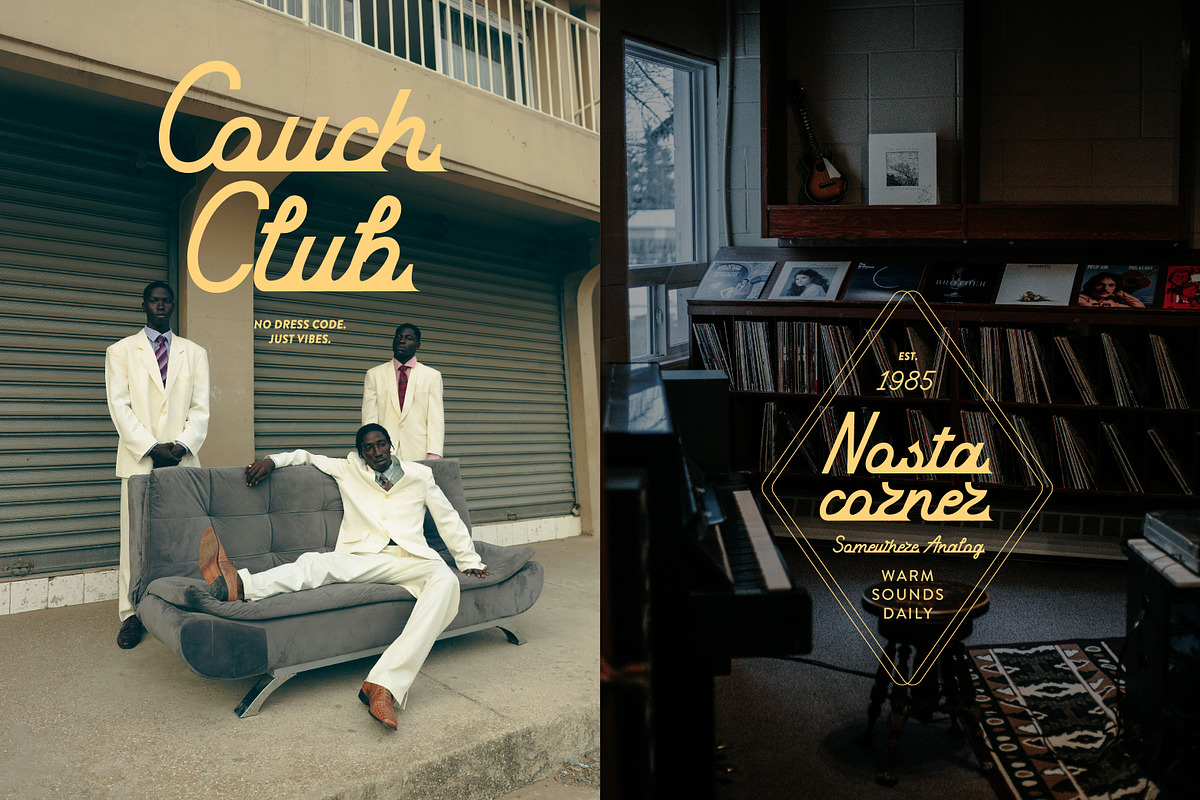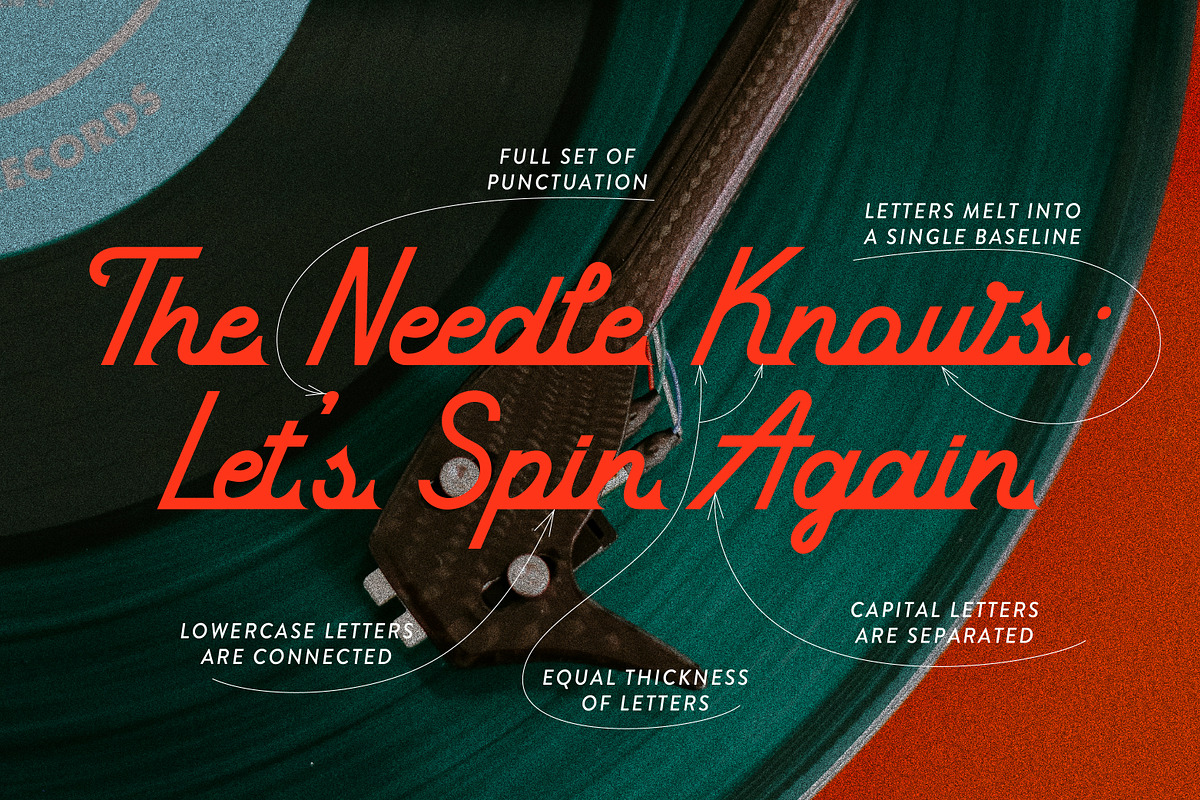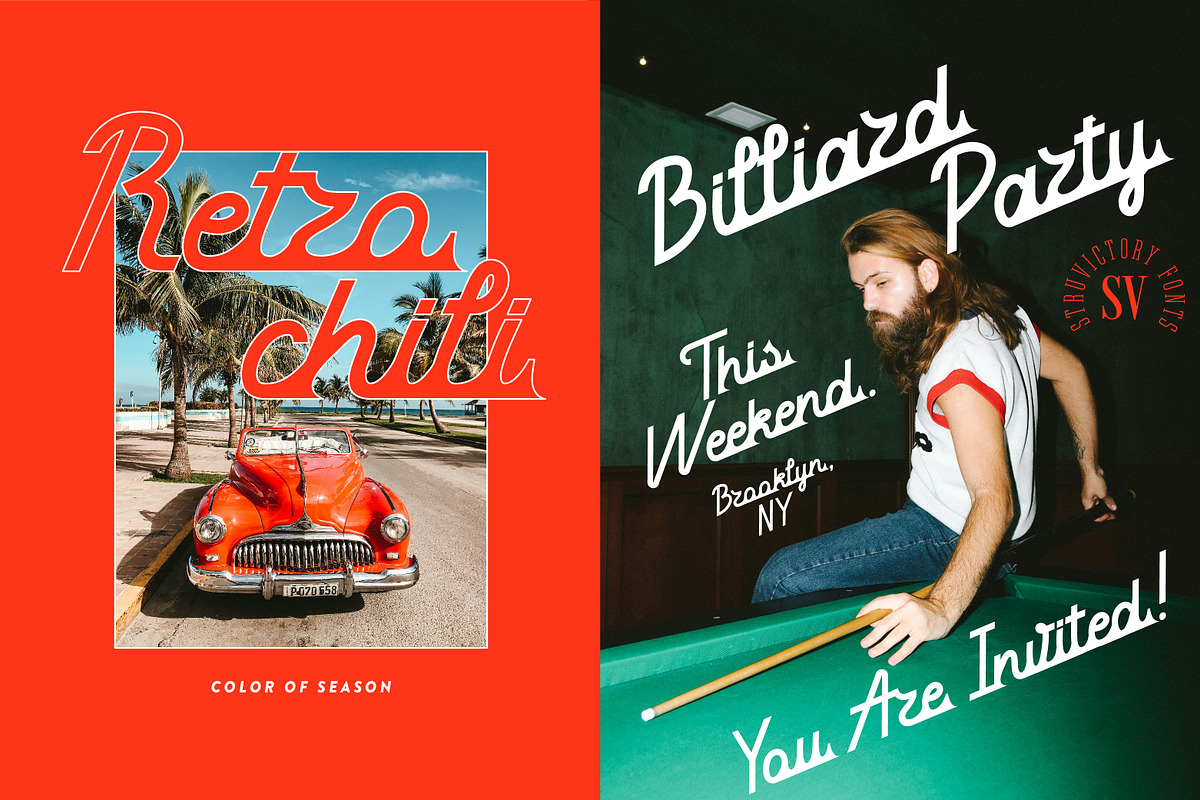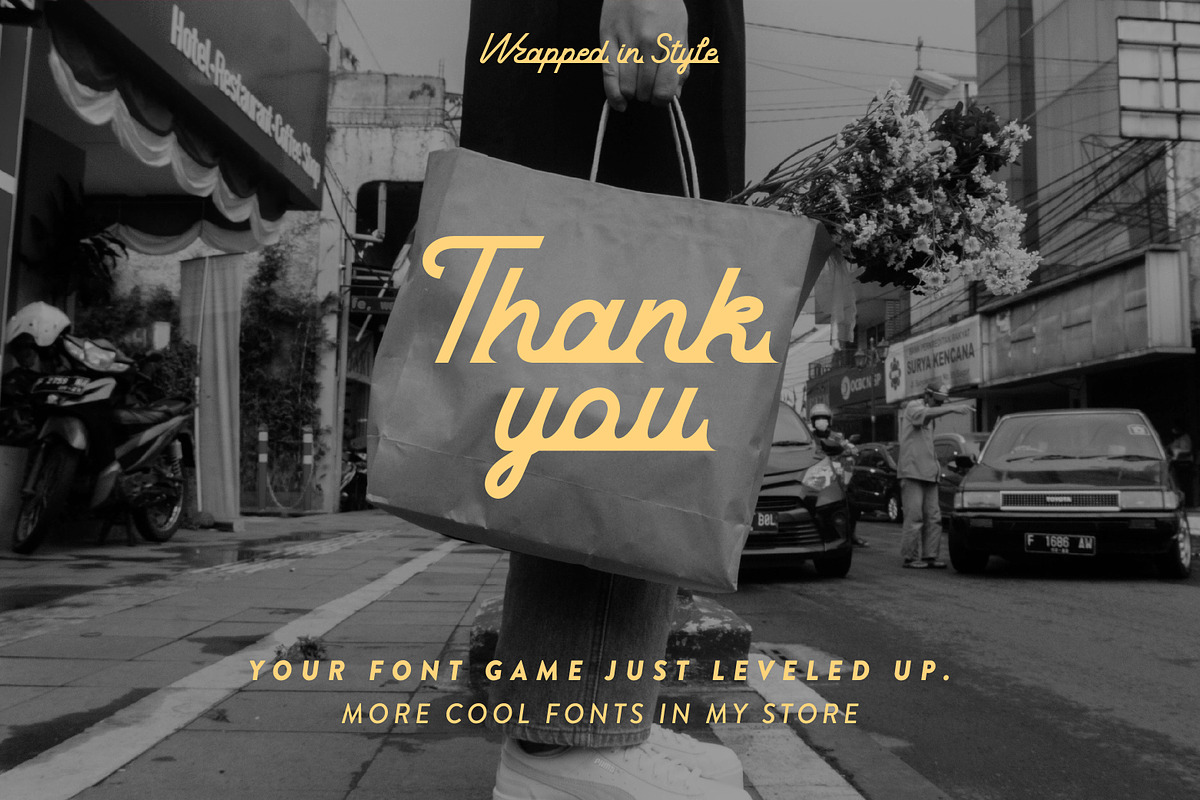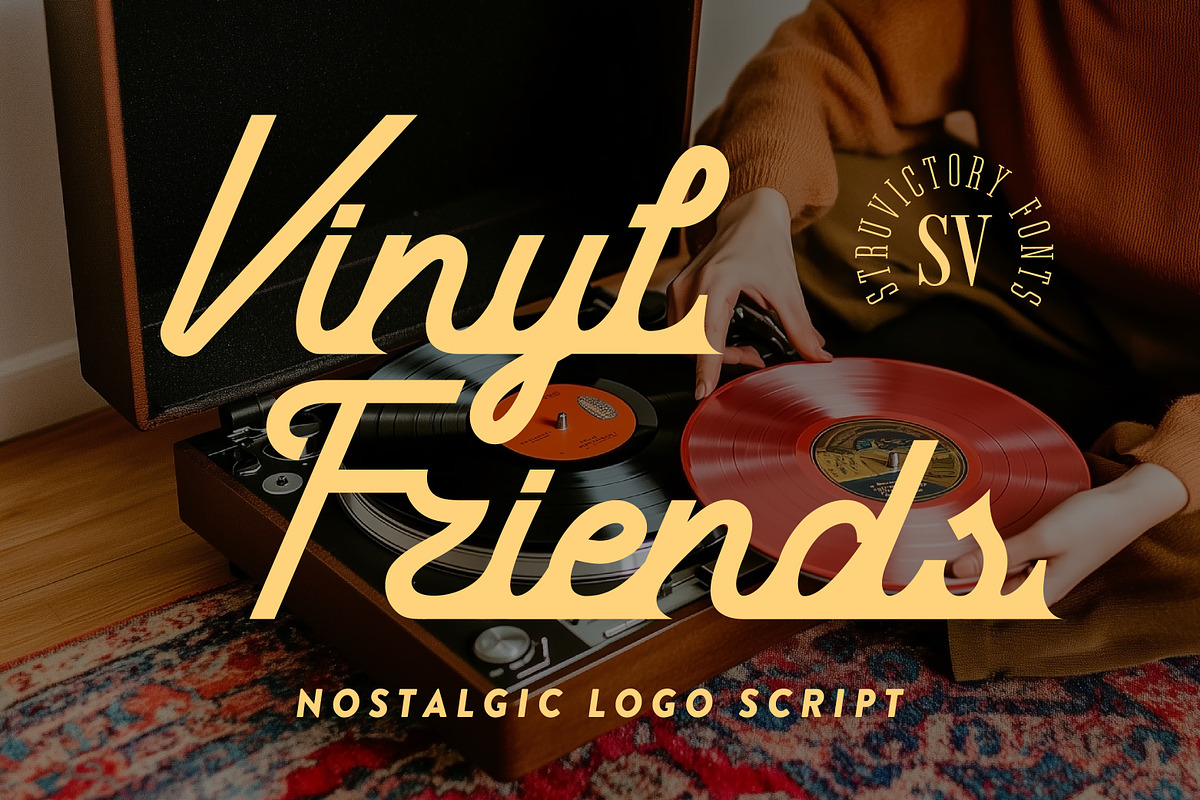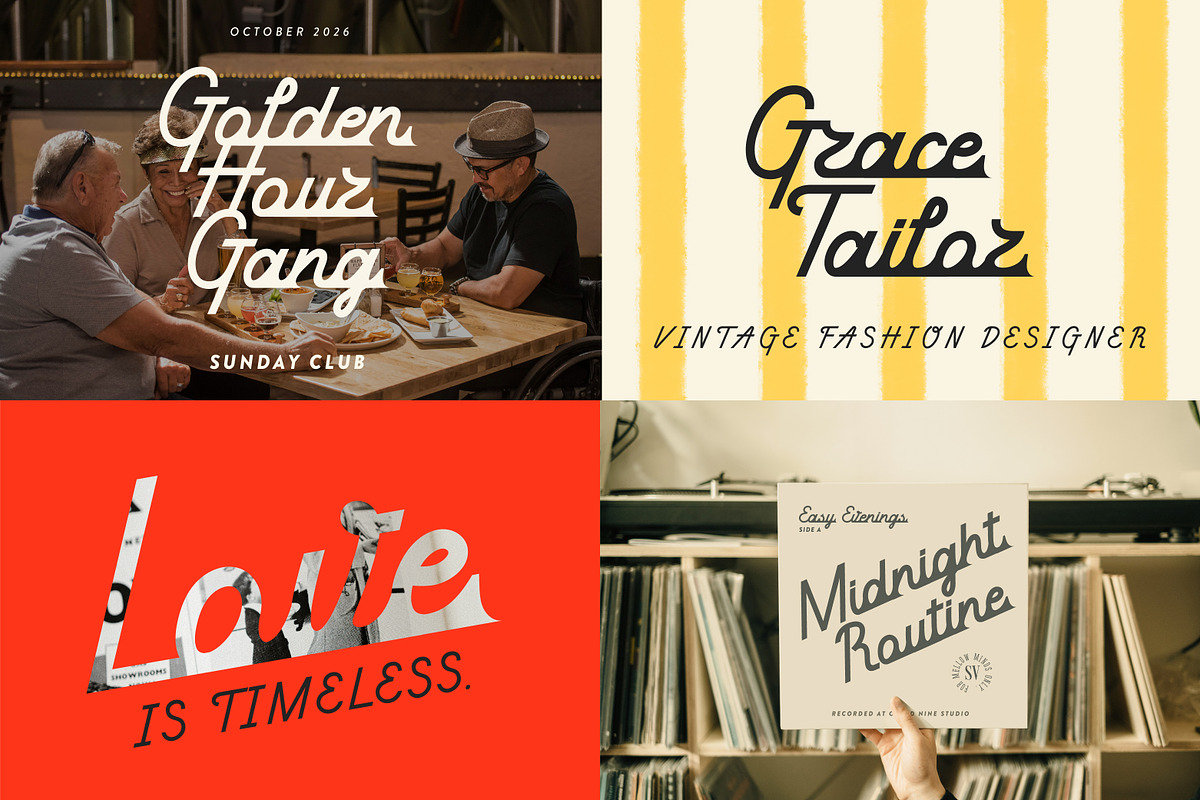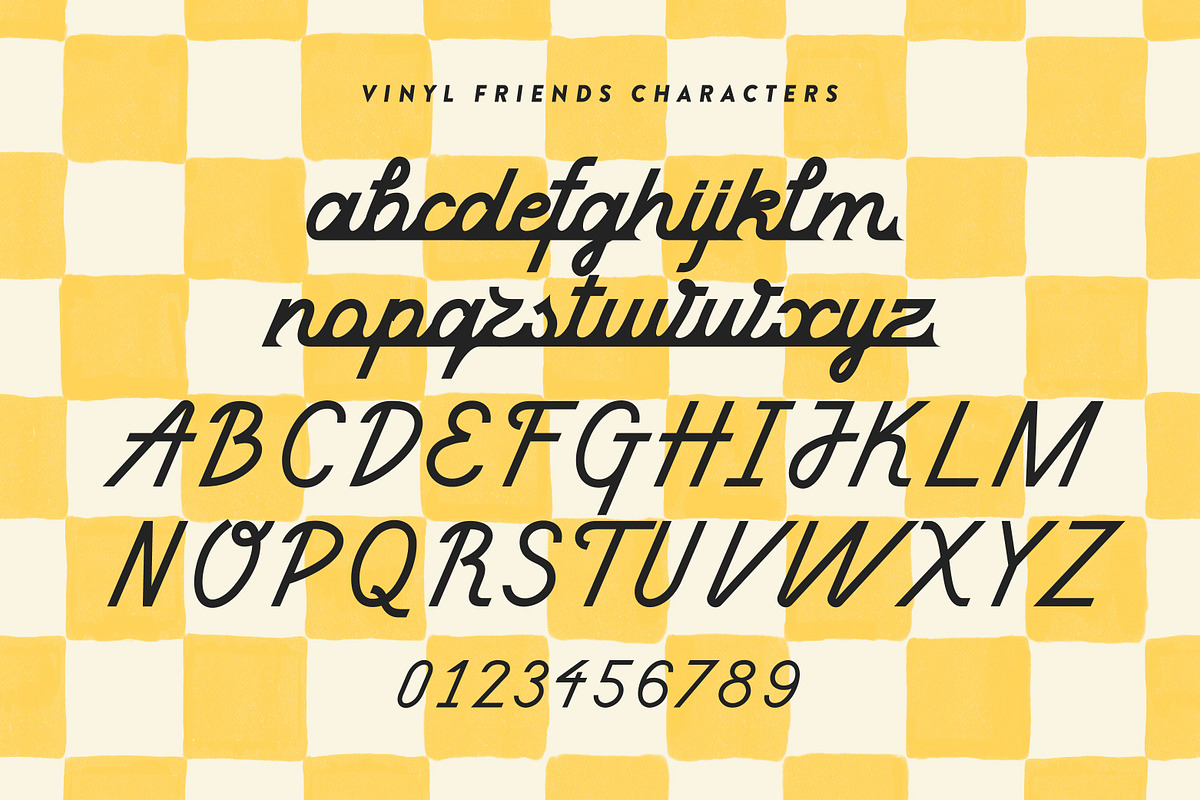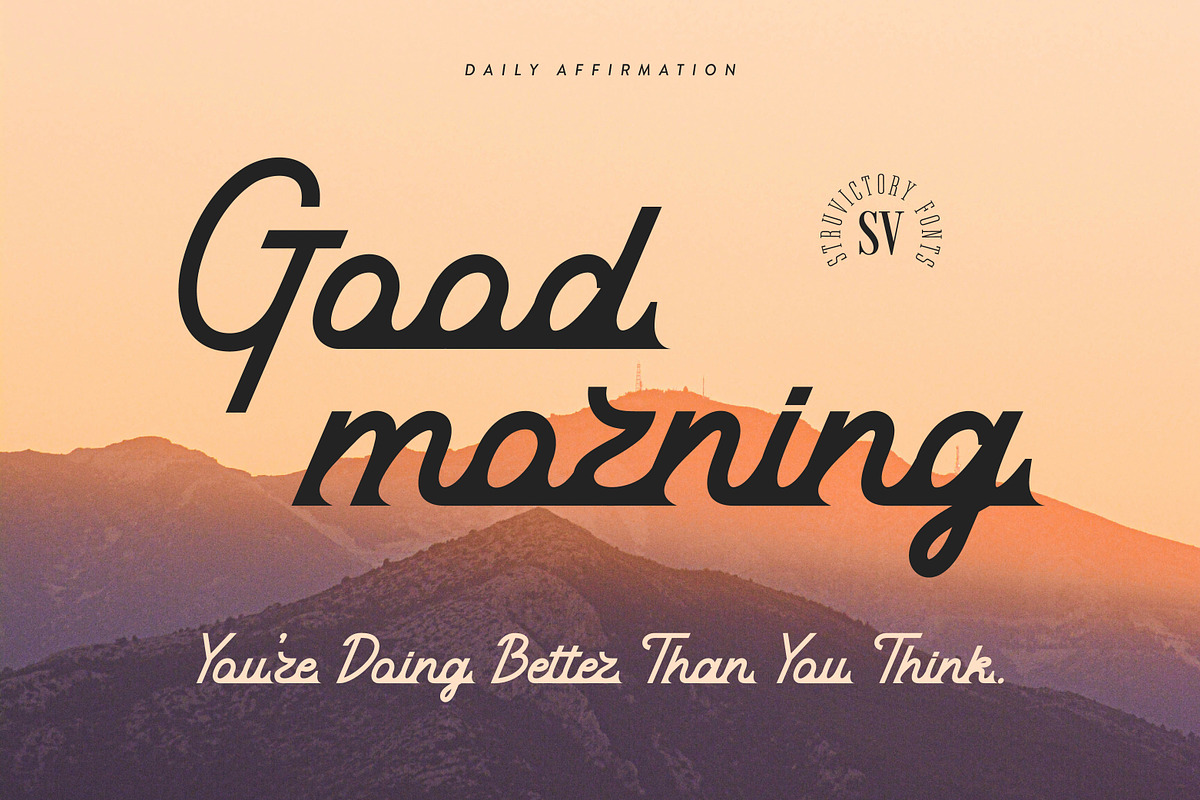
Vinyl Friends Nostalgic Logo Script
Vinyl Friends is a laid-back script font with a nostalgic twist — playful, smooth, and full of analog charm. Its flowing letterforms and subtle quirks channel the spirit of retro logos, handwritten signage, and record store aesthetics. Perfect for branding, packaging, editorial headlines, or any creative project that craves a touch of vintage soul with modern ease. Whether you're crafting a zine cover, a café menu, or a band tee, Vinyl Friends brings effortless personality and warm familiarity to every word.